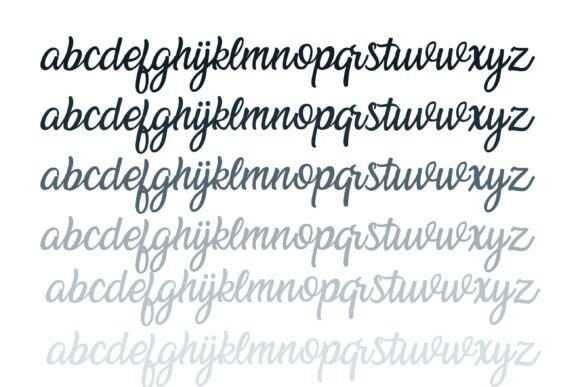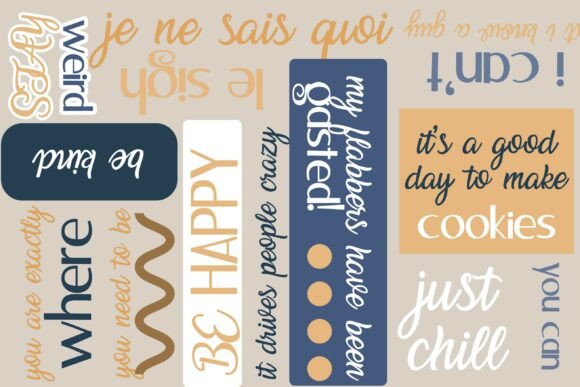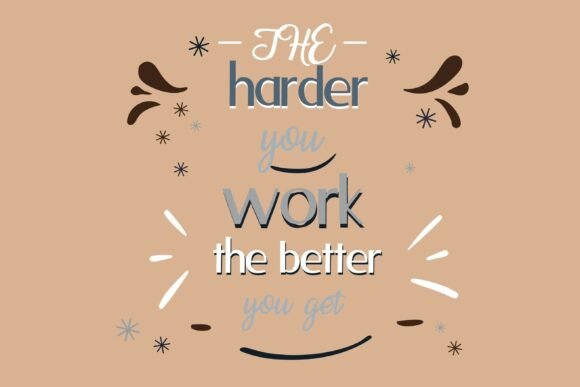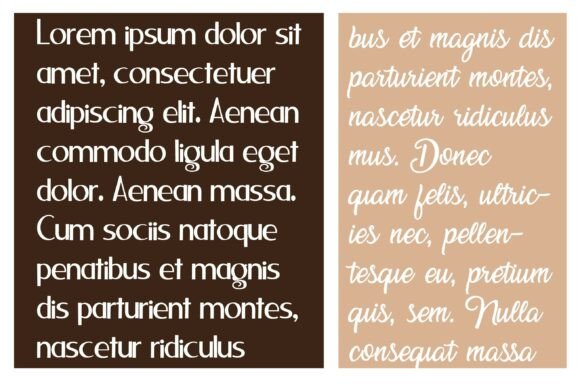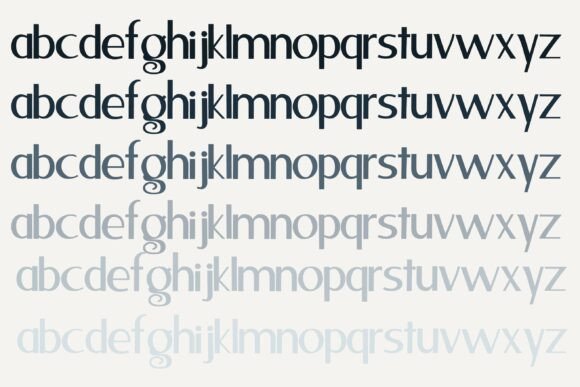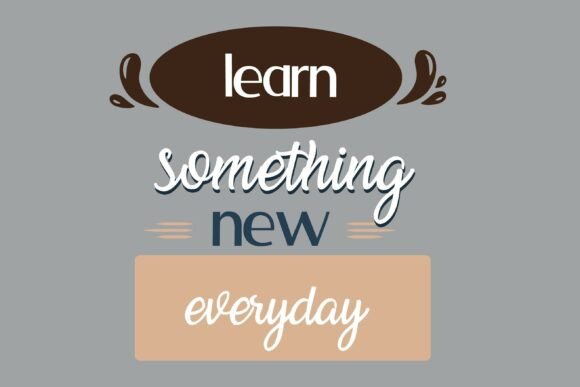
Croissant and Chandlering Duo Font: The Perfect Pairing for Cozy and Professional Designs
Are you a designer or crafter looking for a font duo that can add a touch of warmth and professionalism to your projects? Look no further than the Croissant and Chandlering Duo Font. This charming pairing blends a warm handwritten script with a clean, simple sans serif, making it perfect for bakery branding, food blogs, recipe cards, and café menus.
The Croissant Script: A Deliciously Styled Font
The Croissant script is a beautiful, handwritten font that flows like icing on a fresh pastry. Its warm and inviting style is perfect for adding a touch of coziness to your designs. With its fluid curves and elegant lines, Croissant is ideal for creating logos, packaging, and social media posts that evoke a sense of warmth and care.
The Chandlering Sans Serif: A Clean and Modern Contrast
Pairing perfectly with the Croissant script is the Chandlering sans serif font. Clean, simple, and modern, Chandlering adds clarity and contrast to your designs. Its neat and organized style makes it perfect for creating readable and professional-looking text, ideal for body copy, headings, and titles.
The Perfect Pairing: Why Croissant and Chandlering Work Well Together
The Croissant and Chandlering Duo Font is a match made in heaven. The combination of the warm, handwritten script and the clean, modern sans serif creates a beautiful contrast that adds visual interest to your designs. This pairing is ideal for any project that needs a cozy, homemade vibe with a professional finish.
Here are just a few reasons why Croissant and Chandlering work well together:
- Contrasting styles: The combination of a handwritten script and a sans serif font creates a beautiful contrast that adds visual interest to your designs.
- Warm and inviting: The Croissant script adds a touch of warmth and coziness to your designs, while Chandlering provides a clean and modern contrast.
- Versatile: This font duo is perfect for a wide range of projects, from bakery branding and food blogs to recipe cards and café menus.
Using Croissant and Chandlering in Your Designs
One of the best things about the Croissant and Chandlering Duo Font is its versatility. You can use them together or separately, depending on your design needs. Here are a few ideas for using this font duo in your designs:
- Logos: Use the Croissant script to create a unique and memorable logo for your bakery, café, or food blog.
- Packaging: Pair Croissant and Chandlering to create eye-catching packaging for your food products.
- Social media posts: Use Chandlering for body copy and Croissant for headings to create visually appealing social media posts.
- Recipe cards: Pair Croissant and Chandlering to create beautiful and easy-to-read recipe cards.
The Croissant and Chandlering Duo Font is a charming and deliciously styled font pairing that is perfect for designers and crafters looking to add a touch of warmth and professionalism to their projects. With its versatile and contrasting styles, this font duo is ideal for a wide range of projects, from bakery branding and food blogs to recipe cards and café menus. So why not give it a try and see how it can elevate your designs?